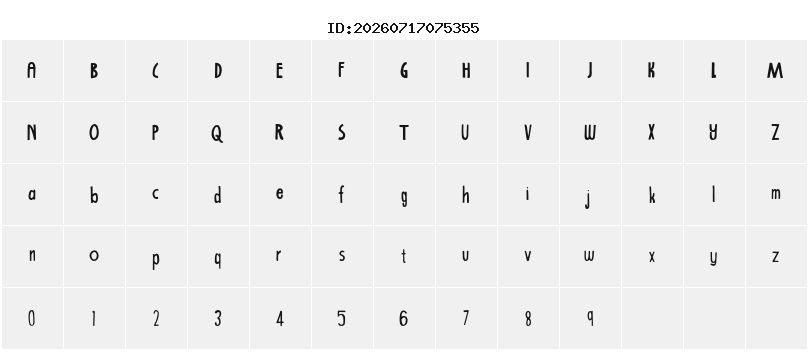
Bright and Beautiful Preview
• Font Name: Bright and Beautiful
About Bright and Beautiful.otf
Bright and Beautiful.otf is a modern, elegant sans-serif font designed for ultimate readability and visual harmony. Perfect for branding, headlines, web design, and print materials.